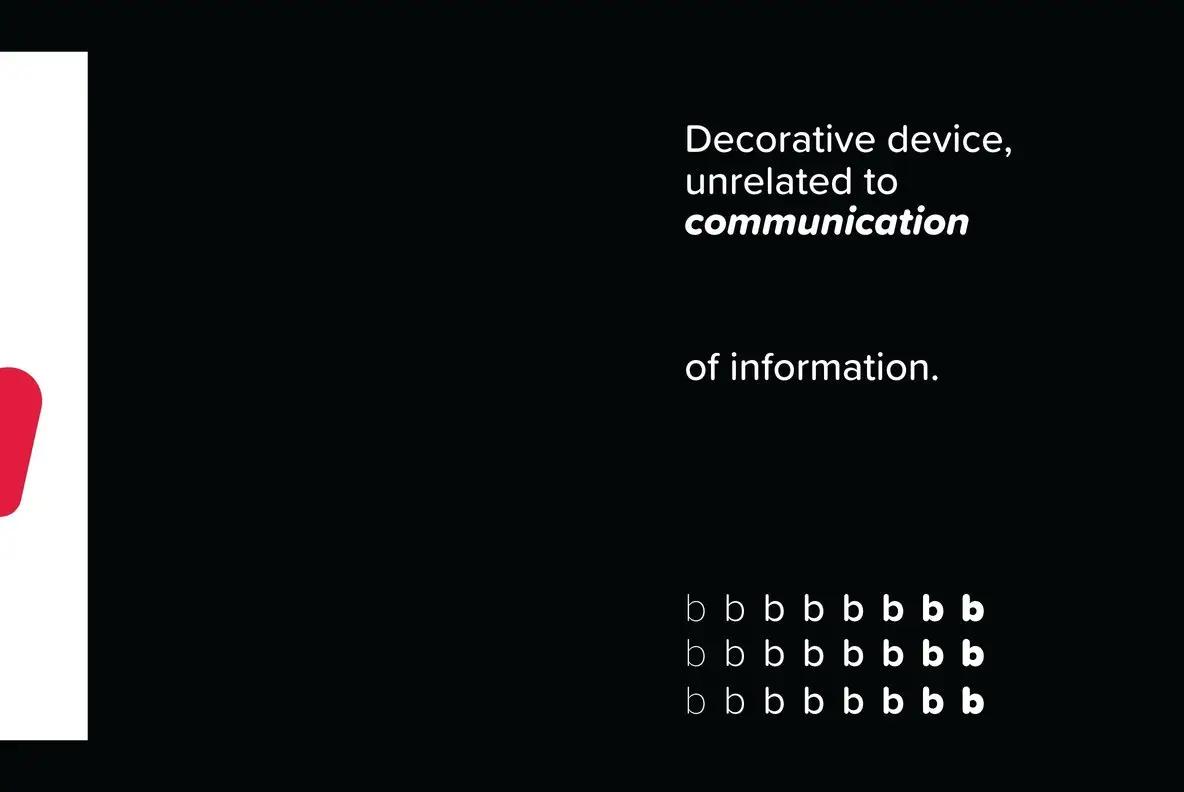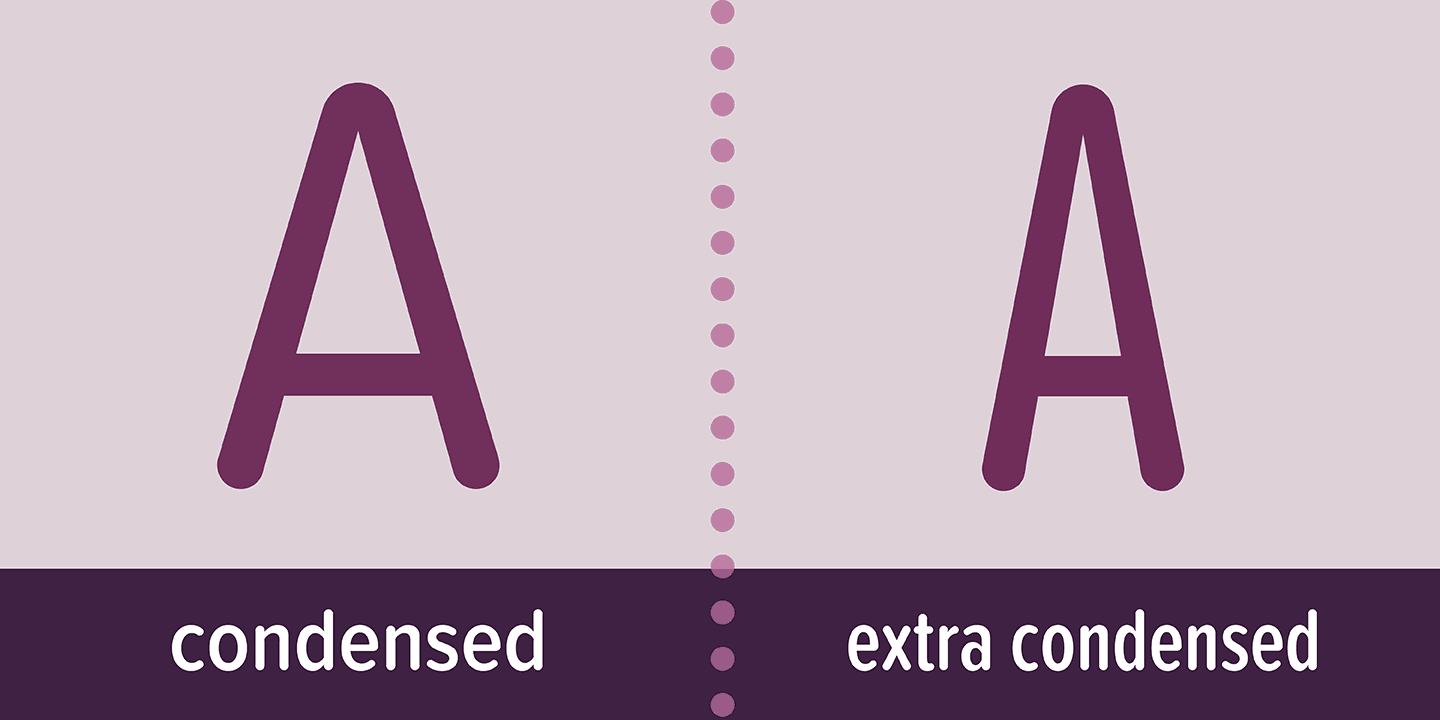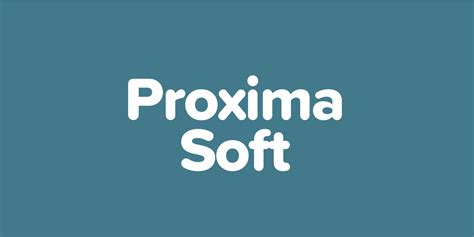
Proxima Soft Font . It is warmer and more playful than proxima nova, and has several alternate characters. Web download proxima soft regular font.
It is warmer and more playful than proxima nova, and has several alternate characters. Web proxima soft is a new font family with 48 weights and styles, based on the original proxima nova soft (2011). It has 48 weights and styles, supports multiple languages and features, and.
Proxima Soft Font
Web proxima nova soft would have reflow issues if the new fonts were installed in its place, not to mention differences in appearance,. Web proxima nova soft would have reflow issues if the new fonts were installed in its place, not to mention differences in appearance,. It supports greek and cyrillic. Web proxima soft is a rounded version of proxima nova.
Proxima Soft Font - Web proxima soft is a rounded version of proxima nova. It has improved design, more features, and wider. Web proxima nova soft would have reflow issues if the new fonts were installed in its place, not to mention differences in appearance,. Web proxima soft is a new font family with 48 weights and styles, based on the original proxima nova.
Proxima Soft Font - It supports greek and cyrillic. Web download proxima soft regular font. Web proxima soft is a new font family with 48 weights and styles, based on the original proxima nova soft (2011). Web proxima soft is a rounded version of proxima nova. Proxima soft regular by adobe systems incorporated.
Proxima Soft Font - Web proxima soft is a rounded version of proxima nova. Web proxima nova soft would have reflow issues if the new fonts were installed in its place, not to mention differences in appearance,. Proxima soft regular by adobe systems incorporated. It has 48 weights and styles, supports multiple languages and features, and. It is warmer and more playful than proxima.
Proxima Soft Font - Web proxima soft is a warm and rounded version of proxima nova, a popular sans serif font. Web download proxima soft regular font. It supports greek and cyrillic. Web proxima soft is a rounded version of proxima nova. It has improved design, more features, and wider.
Proxima Soft Font - It has extensive language support,. Web proxima soft is a warm and rounded version of proxima nova, a popular sans serif font. It supports greek and cyrillic. It has improved design, more features, and wider. Web proxima soft is a new font family with 48 weights and styles, based on the original proxima nova soft (2011).
Proxima Soft Font - It has extensive language support,. Web proxima nova soft would have reflow issues if the new fonts were installed in its place, not to mention differences in appearance,. It supports greek and cyrillic. Web proxima soft is a new font family with 48 weights and styles, based on the original proxima nova soft (2011). Web proxima soft is a warm.
Proxima Soft Font - Proxima soft regular by adobe systems incorporated. Web download proxima soft regular font. Web proxima nova soft would have reflow issues if the new fonts were installed in its place, not to mention differences in appearance,. It has extensive language support,. It supports greek and cyrillic.
Proxima Soft Font - It has extensive language support,. Proxima soft regular by adobe systems incorporated. Web proxima nova soft would have reflow issues if the new fonts were installed in its place, not to mention differences in appearance,. Web proxima soft is a warm and rounded version of proxima nova, a popular sans serif font. It has 48 weights and styles, supports multiple.
Proxima Soft Font - It has extensive language support,. It supports greek and cyrillic. Proxima soft regular by adobe systems incorporated. It has improved design, more features, and wider. It has 48 weights and styles, supports multiple languages and features, and.
Proxima Soft Font - Web download proxima soft regular font. It supports greek and cyrillic. Web proxima soft is a new font family with 48 weights and styles, based on the original proxima nova soft (2011). Web proxima nova soft would have reflow issues if the new fonts were installed in its place, not to mention differences in appearance,. It is warmer and more.
Proxima Soft Font - It is warmer and more playful than proxima nova, and has several alternate characters. Web proxima nova soft would have reflow issues if the new fonts were installed in its place, not to mention differences in appearance,. It has improved design, more features, and wider. It supports greek and cyrillic. Web proxima soft is a new font family with 48.
Proxima Soft Font - It is warmer and more playful than proxima nova, and has several alternate characters. Web proxima soft is a rounded version of proxima nova. It supports greek and cyrillic. Web proxima nova soft would have reflow issues if the new fonts were installed in its place, not to mention differences in appearance,. Web download proxima soft regular font.
Proxima Soft Font - It supports greek and cyrillic. Proxima soft regular by adobe systems incorporated. Web download proxima soft regular font. Web proxima soft is a warm and rounded version of proxima nova, a popular sans serif font. It has extensive language support,.